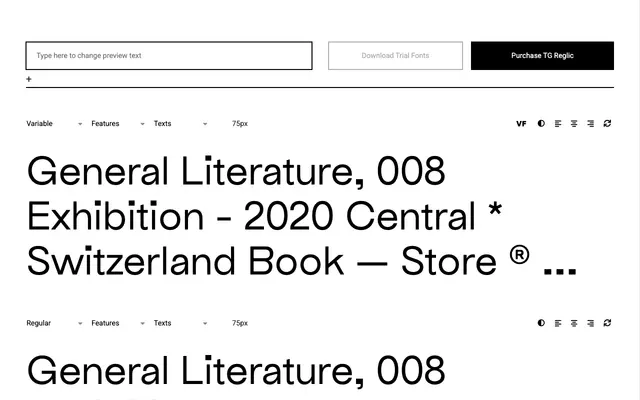
TG Reglic
Tegamitype · Iqbal Firdaus · 2021
A contemporary sans serif by Iqbal Firdaus blending grotesque and geometric influences, available in four weights with italics and a variable font.
Released in 2021 by Tegamitype, TG Reglic draws on both grotesque and geometric letterform traditions to produce a versatile sans suited to body and display text alike. The family ships in four weights from Regular to Bold, each with a matching italic, plus a variable font file covering the full range. OpenType features include multiple ligature sets, a full suite of figure styles and four stylistic sets, with Latin-based language support across more than 100 languages.
The foundry describes TG Reglic as a contemporary sans serif influenced by both grotesque and geometric letterforms, placing it at the intersection of these two traditions rather than firmly in either camp.